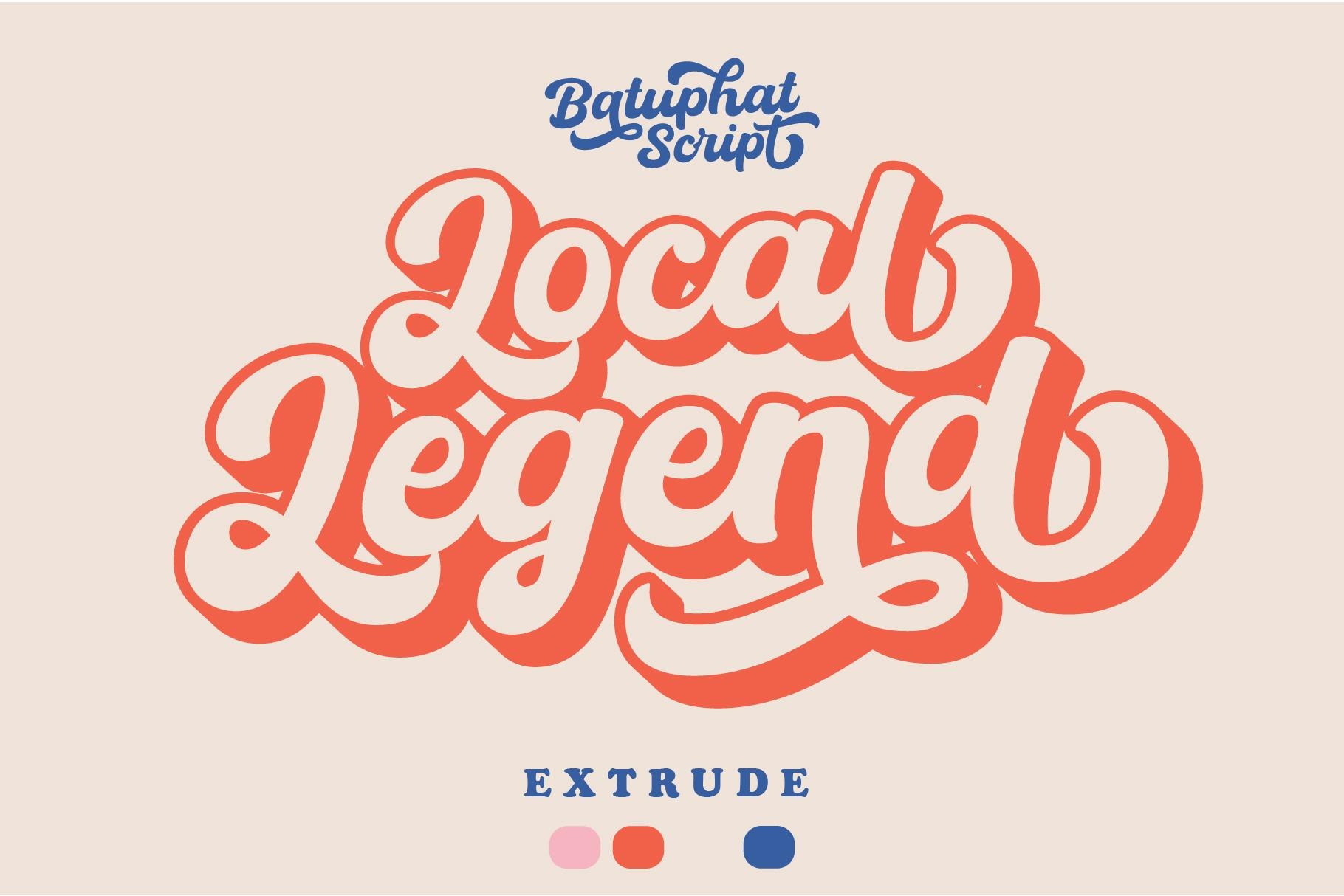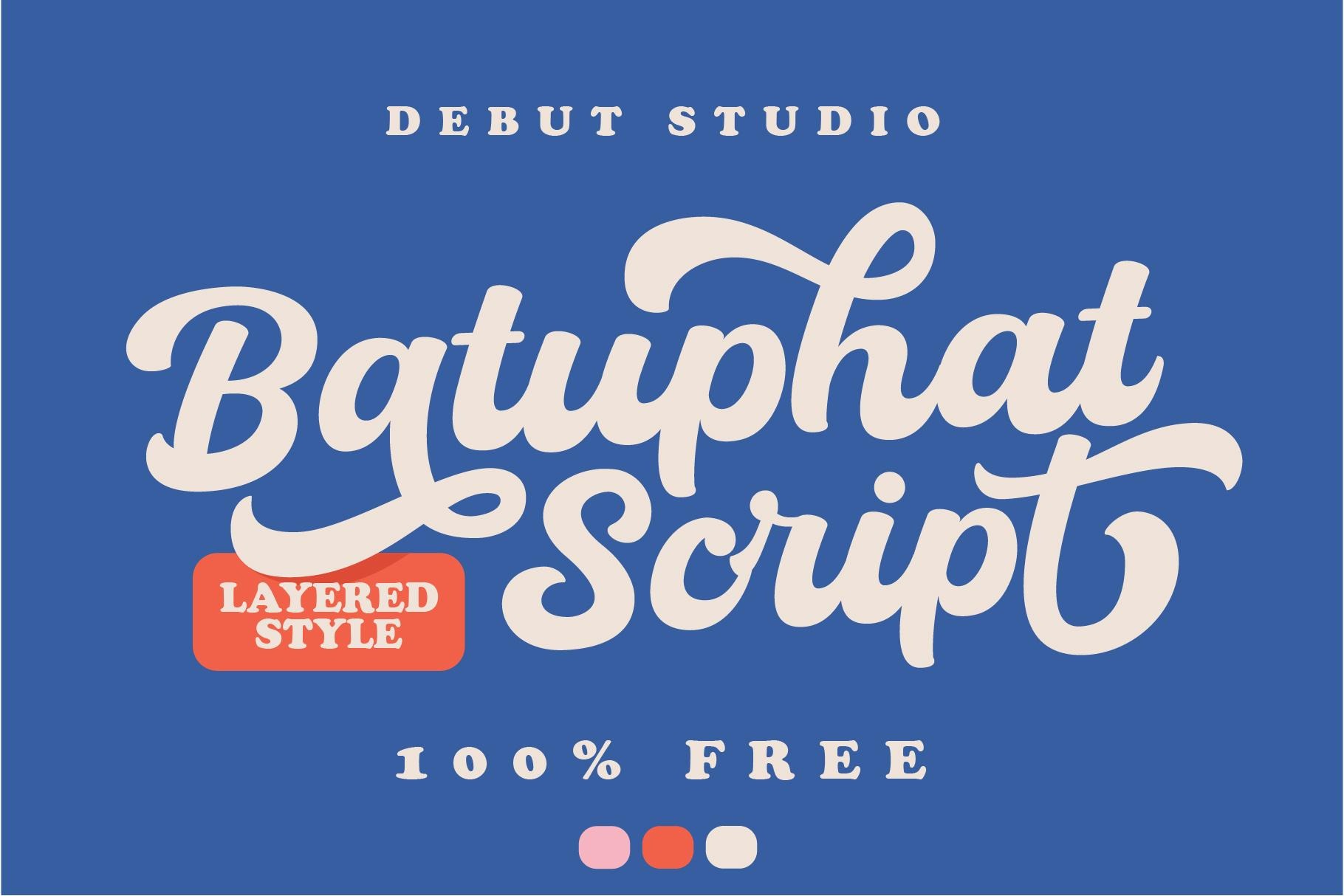
Batuphat Script Font
It’s a retro and bold display typeface inspired by modern vintage & retro style. This font has 2 Features, Regular and Extruded, so it can generate interesting fonts to see, you no longer need to worry about how to make effect on the text. This font is suitable for young, passionate design, such as logo design, t-shirts, branding, and various other design purposes.